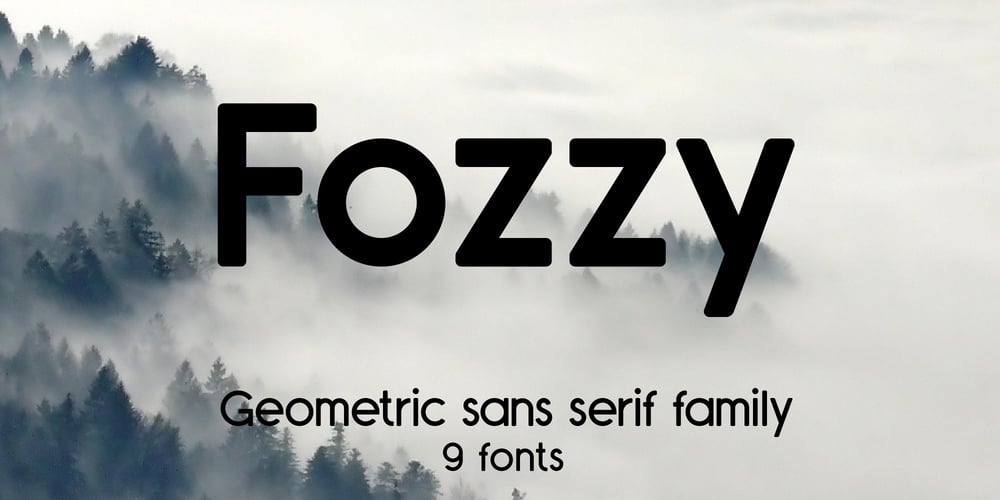
Fozzy Font Family was designed by Volodymyr Berla and published by VladB. Fozzy contains 9 styles and family package options. Fozzy is a modern sans serif geometric font, includes upper and lower case characters, Latin, Cyrillic, Latin Eastern Europe, Turkish, Baltic and other.Fozzy family consists of 9 fonts, divided into 3 subgroups (according to the type of style – St, Rg, Op), and have the 3 types of thickness in each subgroup.Fozzy fonts will be useful in developing a brand, creating posters and other graphic products, and for word processing.